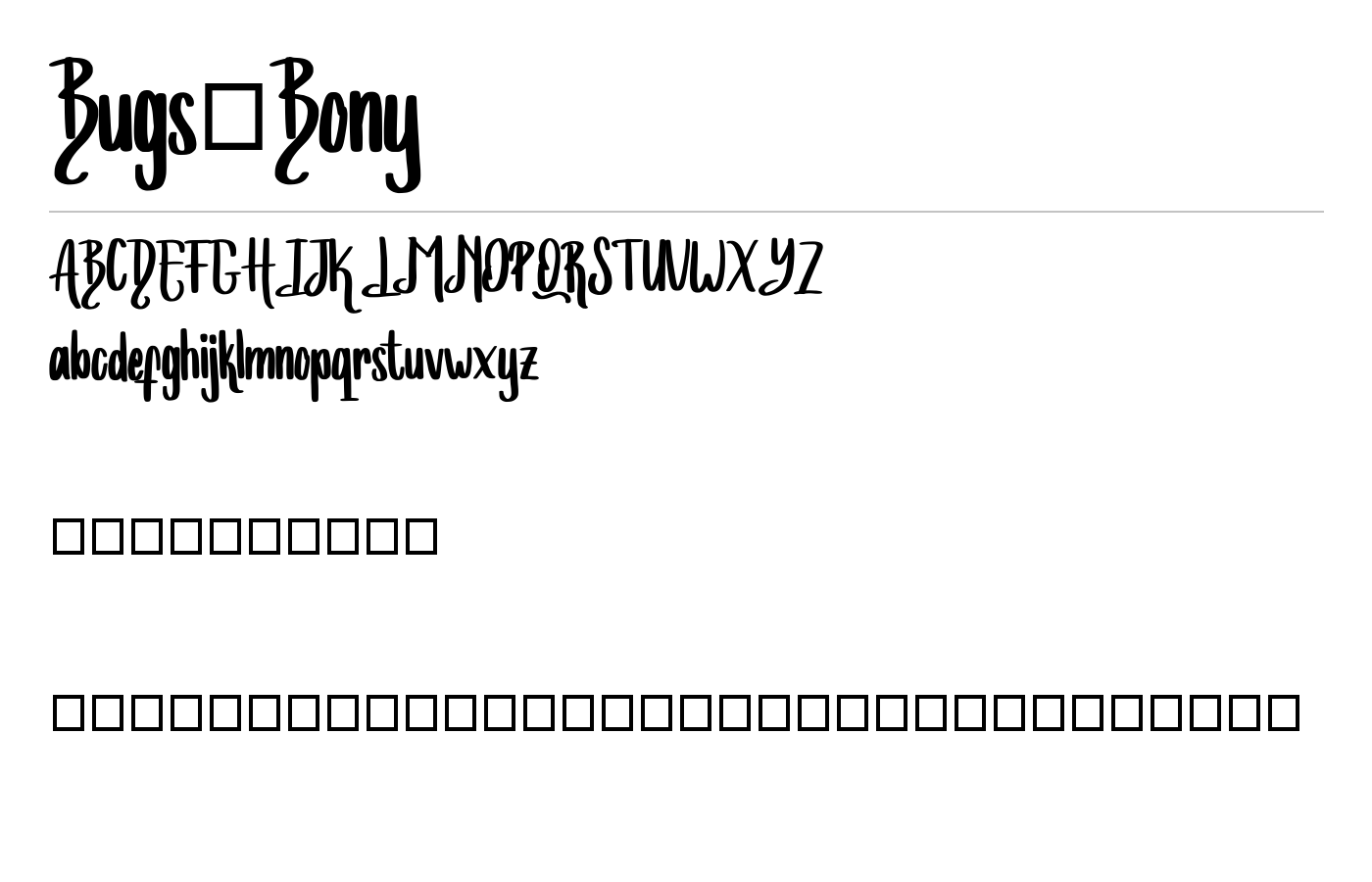
Bugs_Bony is a playful and quirky handwritten font with tall, narrow letterforms and distinctive curly strokes, giving it a lively, informal character. Its irregular shapes and unique uppercase details make it perfect for creative projects, children’s designs, or casual branding that seeks a fun and friendly vibe. This font works best in headlines, logos, and packaging where its whimsical style can stand out and add personality.
Bugs_Bony Font